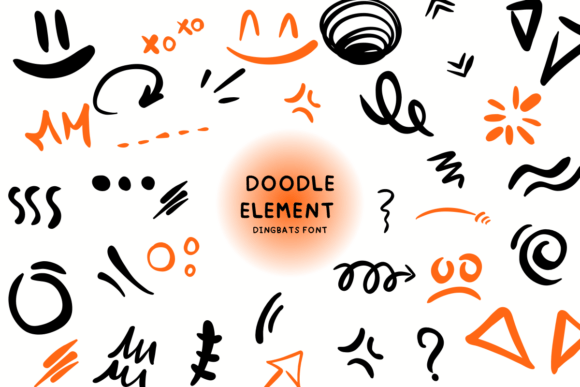
Unleash Your Creativity with Doodle Element Font
In the world of digital design, fonts play a crucial role in conveying messages, expressing emotions, and capturing attention. Among the myriad of fonts available, Doodle Element stands out as a unique and artistic dingbats font that can elevate your designs to a new level. In this article, we’ll explore the features, benefits, and uses of Doodle Element, and how it can help you unleash your creativity.
What is Doodle Element Font?
Doodle Element is an artistic dingbats font designed to inspire creativity and add a playful touch to your designs. Its unique and whimsical style makes it perfect for infusing a personal touch into your scribbled notes, greeting cards, and various design projects.
Key Features of Doodle Element Font
- Unique and Artistic Style: Doodle Element boasts a distinctive and artistic style that sets it apart from traditional fonts.
- Versatility: This font is versatile and can be used in a wide range of designs, from banners and content to mugs, cards, shirts, and stationery.
- Playful and Whimsical: Doodle Element adds a playful and whimsical touch to your designs, making them more engaging and eye-catching.
- Elegant and Stylish: Despite its playful nature, Doodle Element also has an elegant and stylish side, making it suitable for designs that require a touch of sophistication.
Uses of Doodle Element Font
Doodle Element is an incredibly versatile font that can be used in various design projects. Here are some ideas to get you started:
- Scribbled Notes and Journals: Add a personal touch to your notes and journals with Doodle Element’s playful and artistic style.
- Greeting Cards: Create unique and eye-catching greeting cards for special occasions, such as birthdays, weddings, and holidays.
- Banners and Posters: Use Doodle Element to create attention-grabbing banners and posters for events, promotions, or announcements.
- Social Media Posts: Elevate your social media posts with a dash of artistic whimsy using Doodle Element.
- Mugs, Shirts, and Stationery: Add a touch of personality to your mugs, shirts, and stationery with this versatile font.
Benefits of Using Doodle Element Font
Using Doodle Element in your designs offers several benefits, including:
- Unique and Creative Designs: Doodle Element helps you create unique and creative designs that stand out from the crowd.
- Time-Saving: With Doodle Element, you can quickly and easily add a playful touch to your designs, saving you time and effort.
- Versatility: This font can be used in various design projects, making it a valuable addition to your font library.
Tips for Using Doodle Element Font
To get the most out of Doodle Element, here are some tips to keep in mind:
- Experiment with Different Sizes and Colors: Play around with different sizes and colors to find the perfect combination for your design.
- Mix and Match with Other Fonts: Combine Doodle Element with other fonts to create a unique and visually appealing design.
- Use it for Headings and Titles: Use Doodle Element for headings and titles to add a touch of personality to your designs.
- Don’t Overdo it: Use Doodle Element sparingly to avoid overwhelming your design.
Doodle Element is a unique and artistic dingbats font that can add a playful touch to your designs. With its versatility, ease of use, and range of applications, it’s an excellent addition to any designer’s font library. Whether you’re a seasoned designer or a beginner, Doodle Element can help you unleash your creativity and take your designs to the next level.
- What is Doodle Element Font?: Doodle Element is an artistic dingbats font designed to inspire creativity and add a playful touch to your designs.